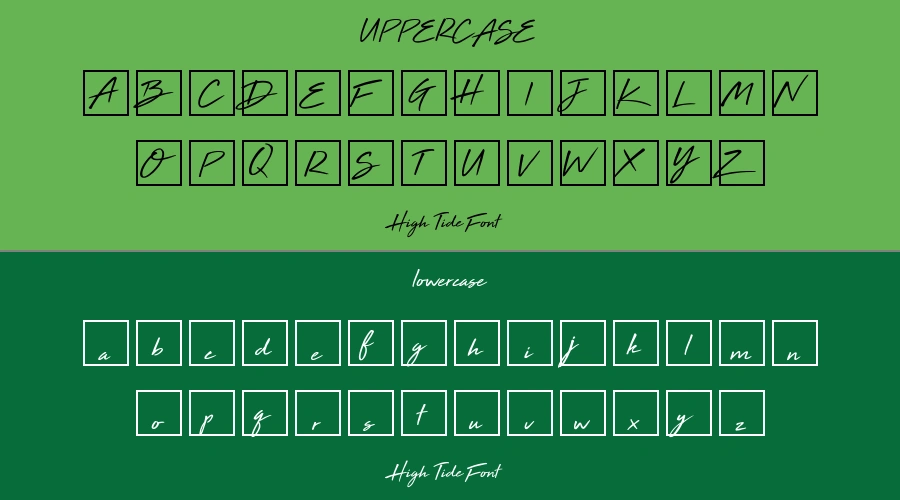
About High Tide Font
High Tide Font embodies typographic excellence through its masterful combination of assertive angles and reliability. Created for environmental graphics, this typeface delivers exceptional authenticity and quality certification across all applications. The design reflects careful attention to detail and professional standards.
Advanced capabilities include distinctive strong contrast and versatile arrow sets, giving designers creative control. When used in data tables, High Tide Font exhibits remarkable table alignment. The harmonious balance between aperture size and cultural context sets this typeface apart.
High Tide Font |